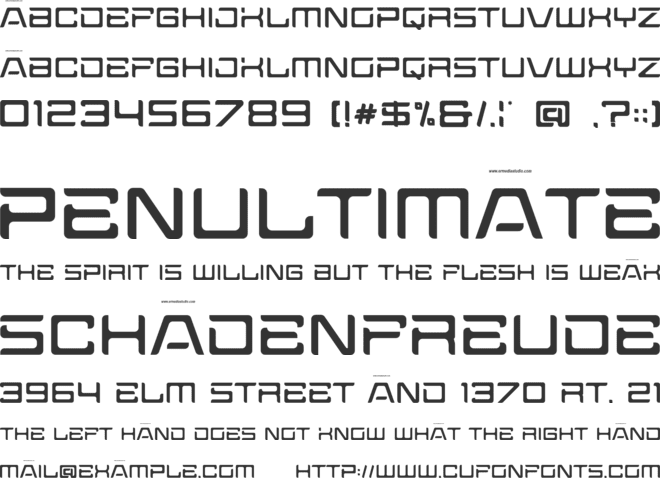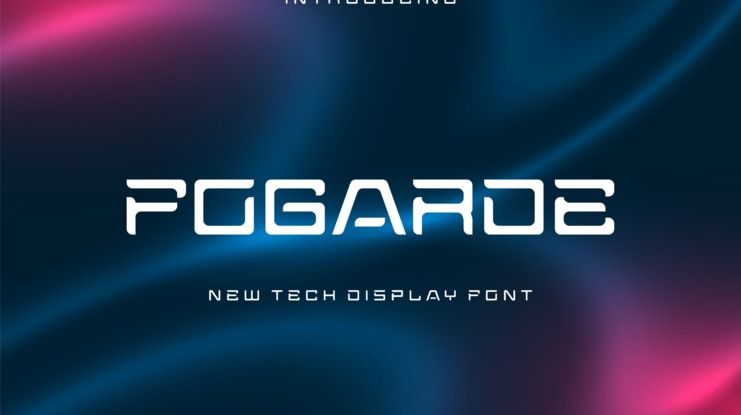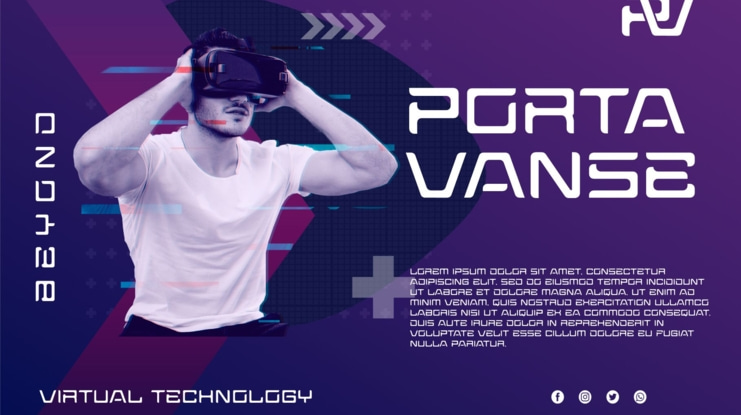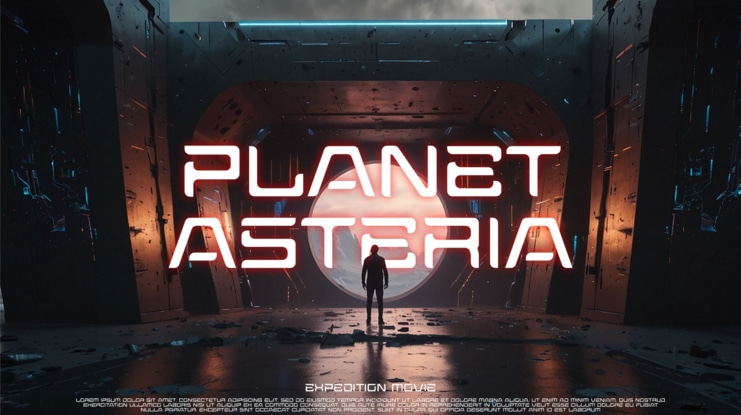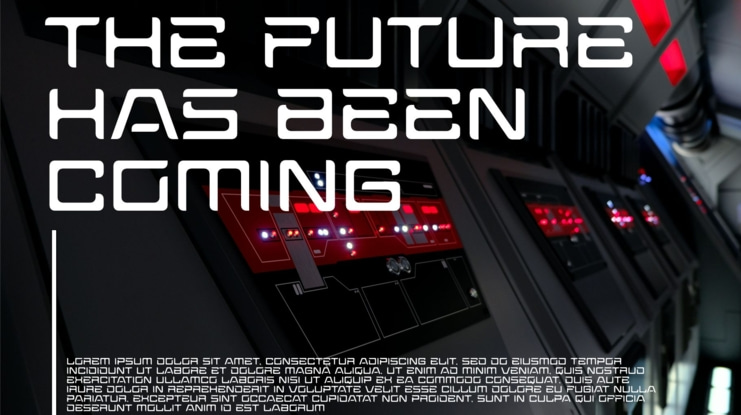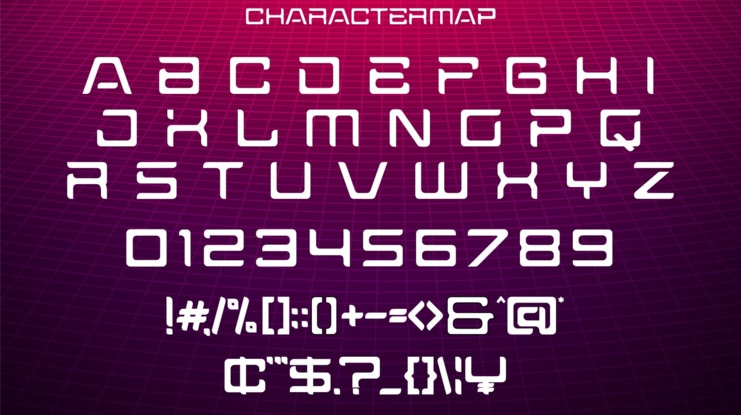
FOGARDE Font
Introducing Fogarde A New Tech Display Font is a modern, trendy, elegant and futuristic display font. It has a unique character. It is perfect to be combined with invitation card designs, company logos, movie titles, movie names, business cards, book titles, brand names and various other designs.
- Ligature
- Uppercase and lowercase
- Numbering and Punctuation